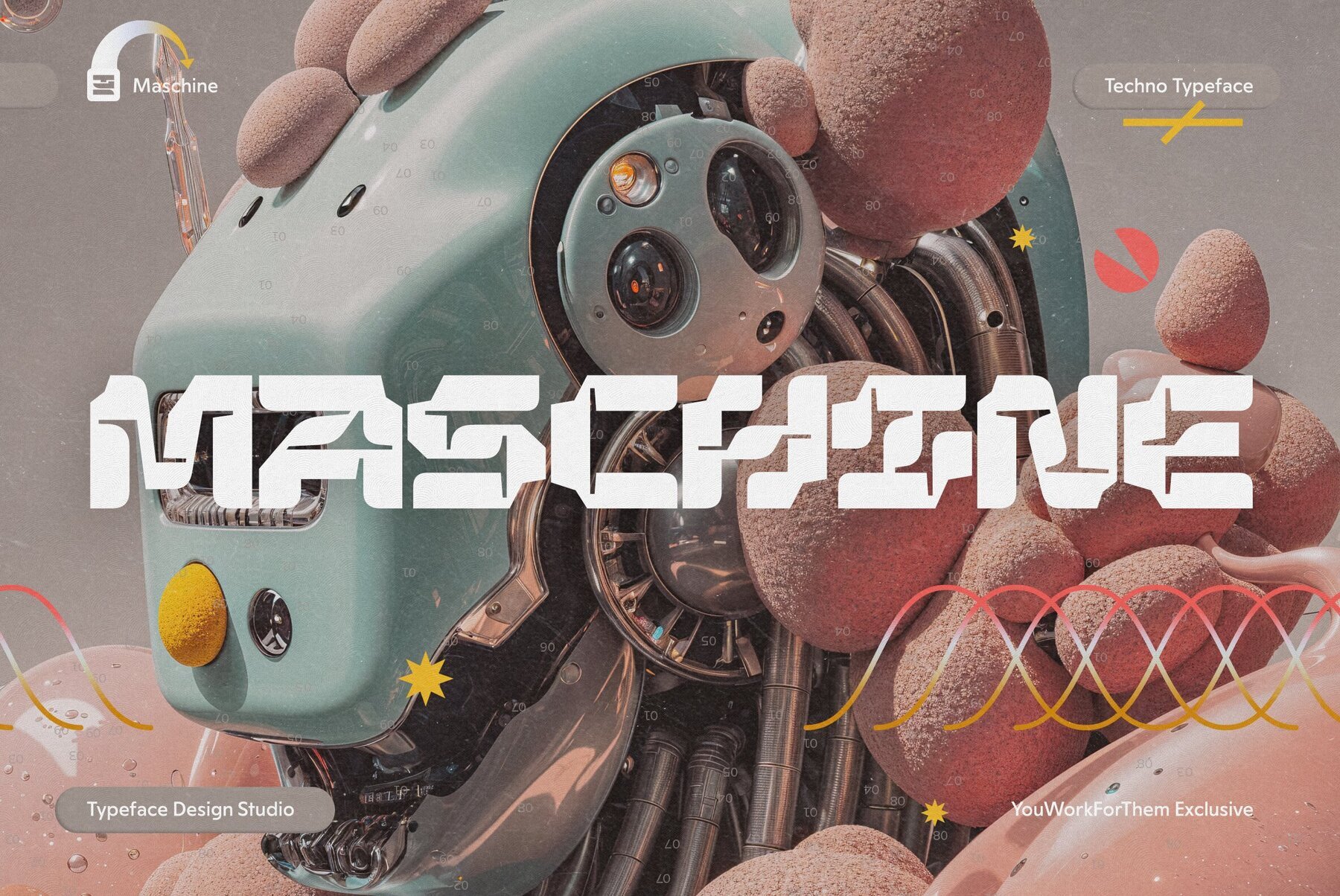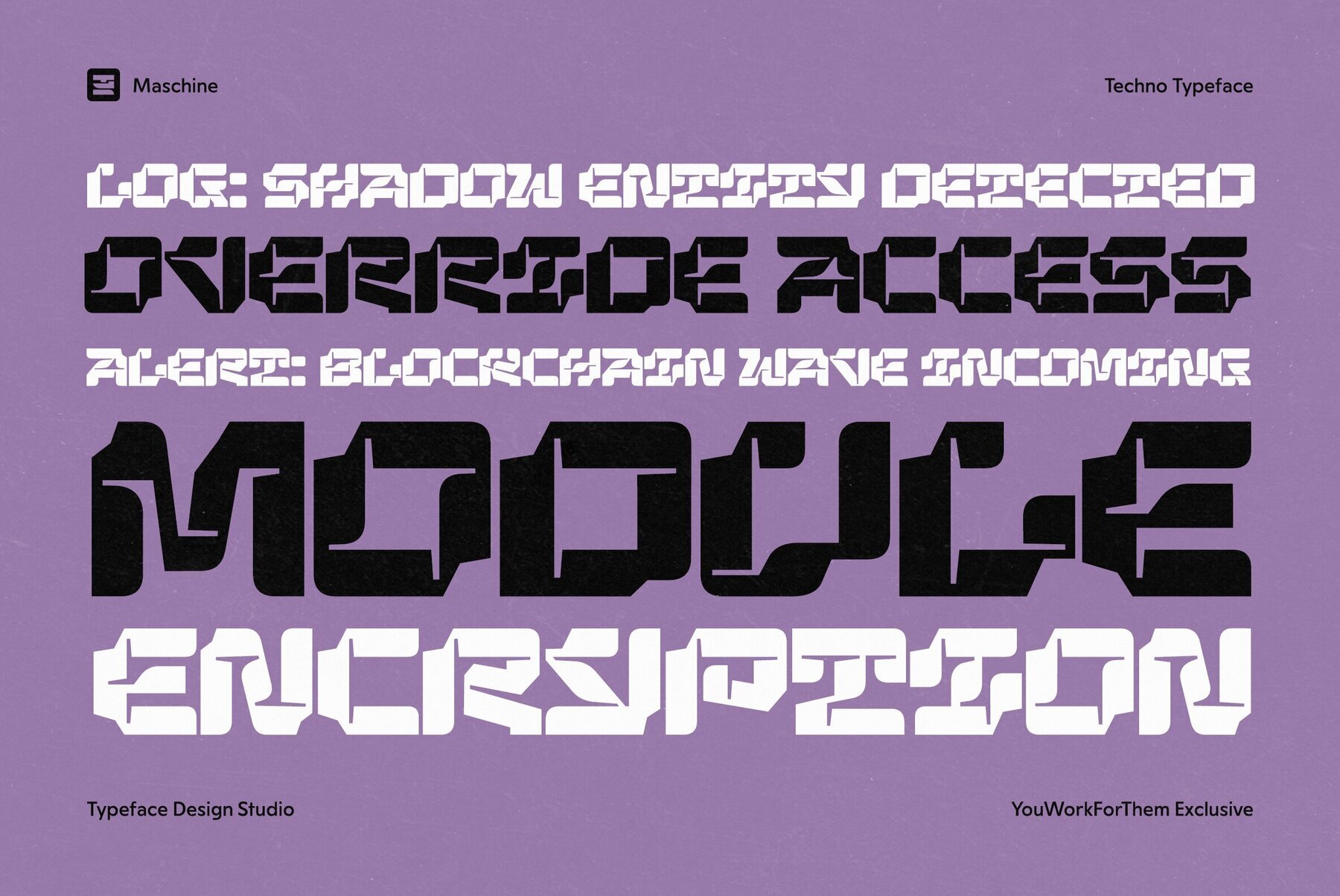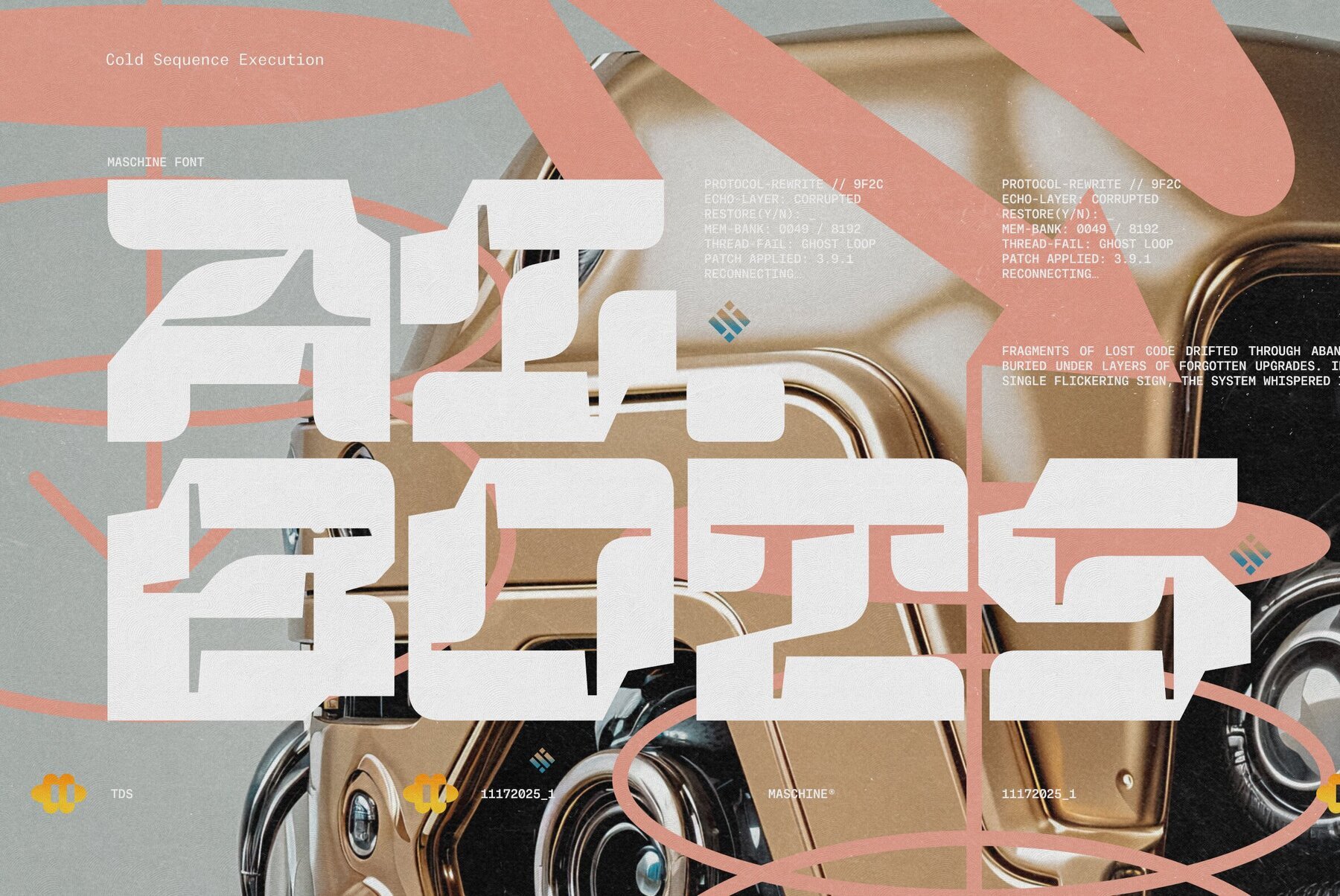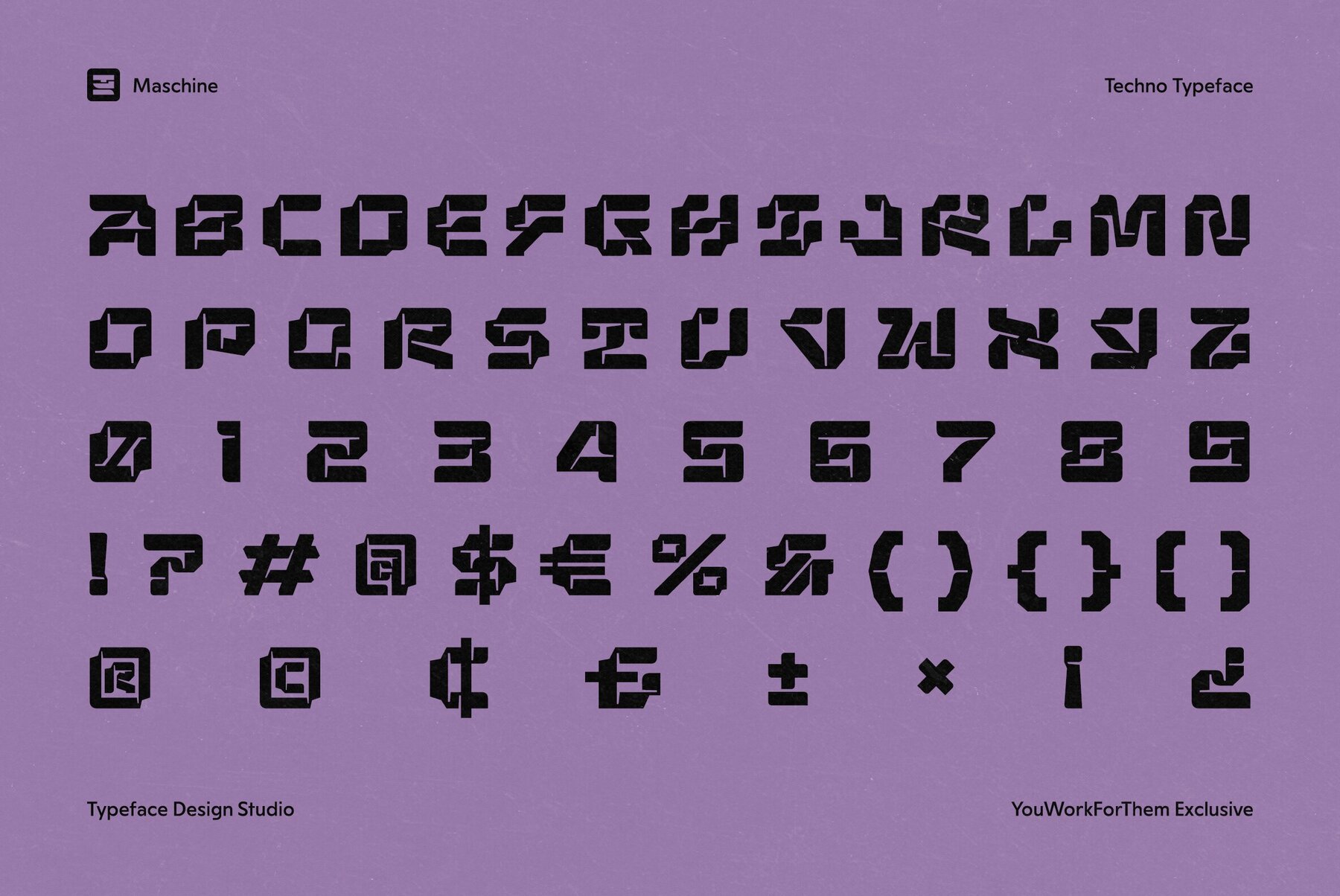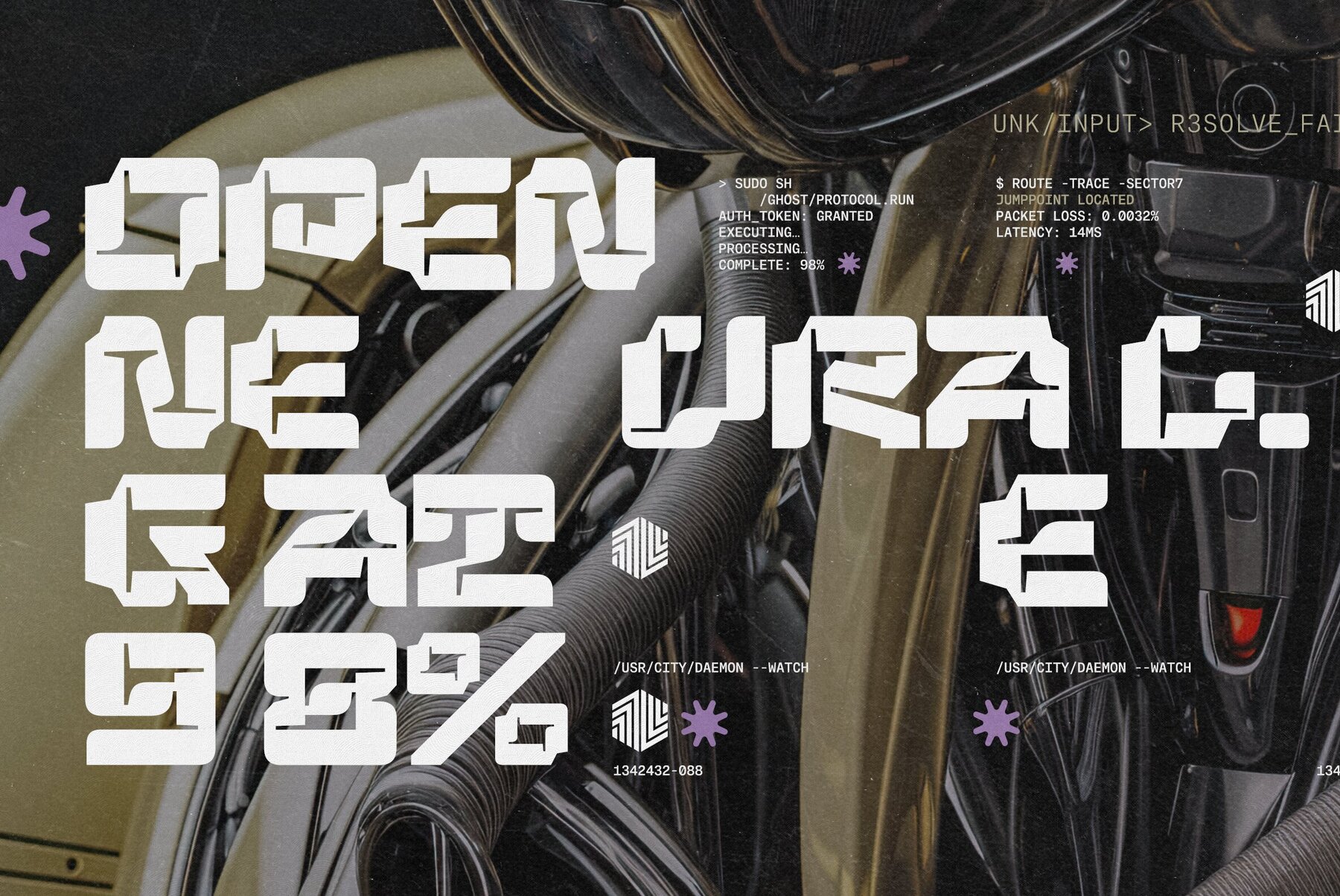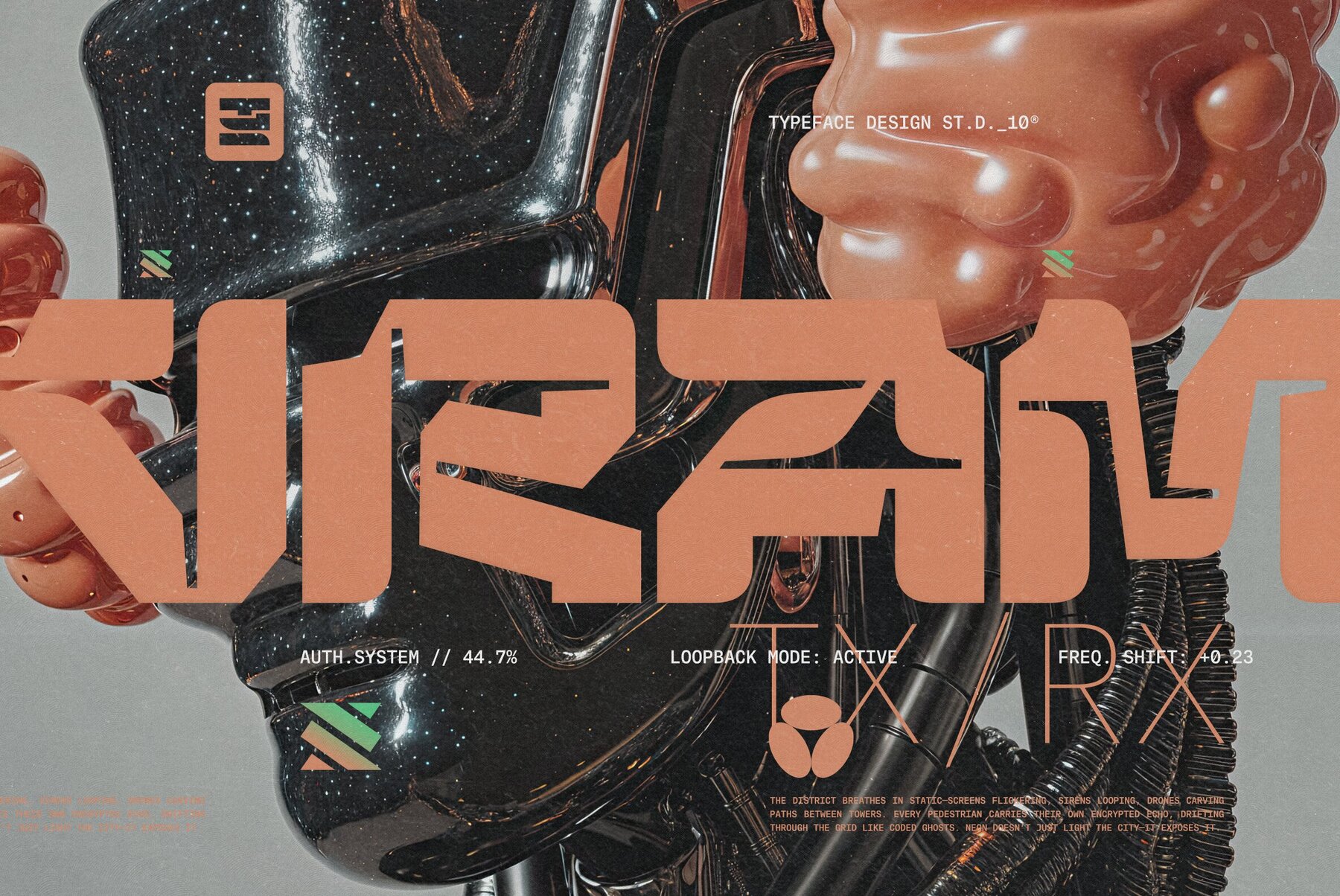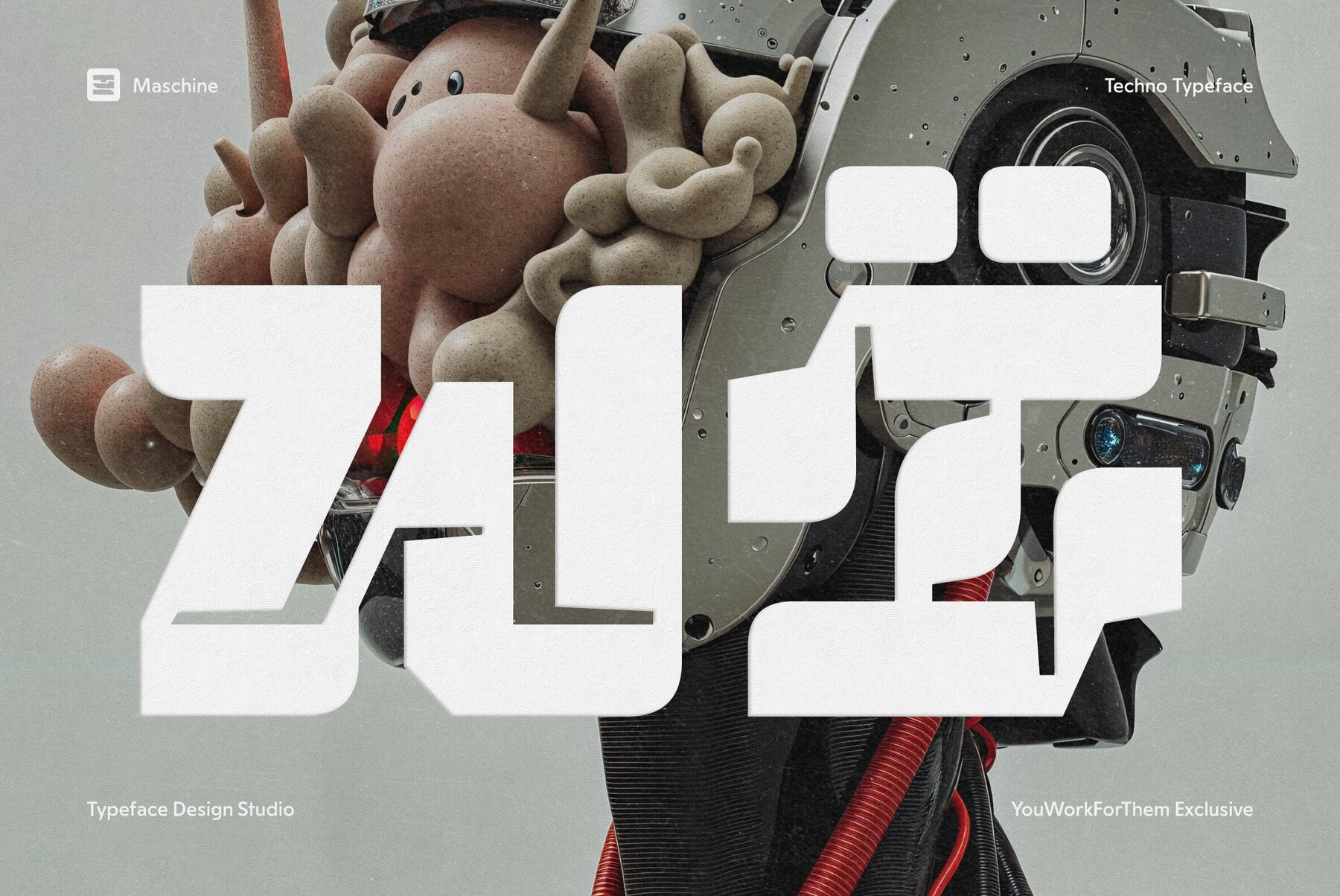
Maschine reflects the modern cyberpunk spirit, characterized by its angular cuts, beveled facets, and seamless transitions that form bold, industrial blocks. While its structure remains consistent, Maschine thrives with glitch-inspired aesthetics, successfully embodying databend textures and scanline overlays. When showcased on posters or title cards, it echoes the sensation of a system booting under neon lights. Maschine is designed strictly for headlines, cover art, and hero panels, offering a striking presence in large formats. Though not apt for body text or UI microcopy, it retains its form with bold effects, making it perfect for dynamic content such as game trailers and stream intros. Maschine shines in contrast. Pair it with subtle grotesque or monospaced subheads, complemented by sharp lighting, metallic surfaces, and low-bit effects. Adding motion blur and chromatic aberrations enhances its near-future appeal. Opt for concise text, allowing its form to captivate. Download Maschine today, set your headline, and witness its powerful silence.Maschine: Cyberpunk Aesthetic Meets Gaming Typography
Appeal to Game Studios
Essential Features
Suggested Applications
Creative Insights